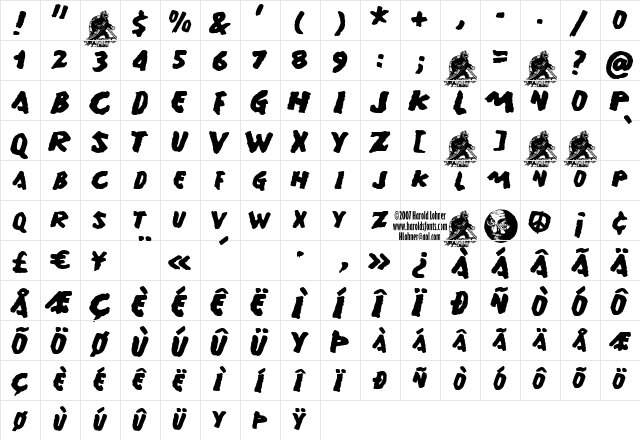
Gamera Regular
Design Context for Gamera Typeface
Gamera is a composed and adaptable typeface that performs quietly and consistently across a wide range of design contexts.